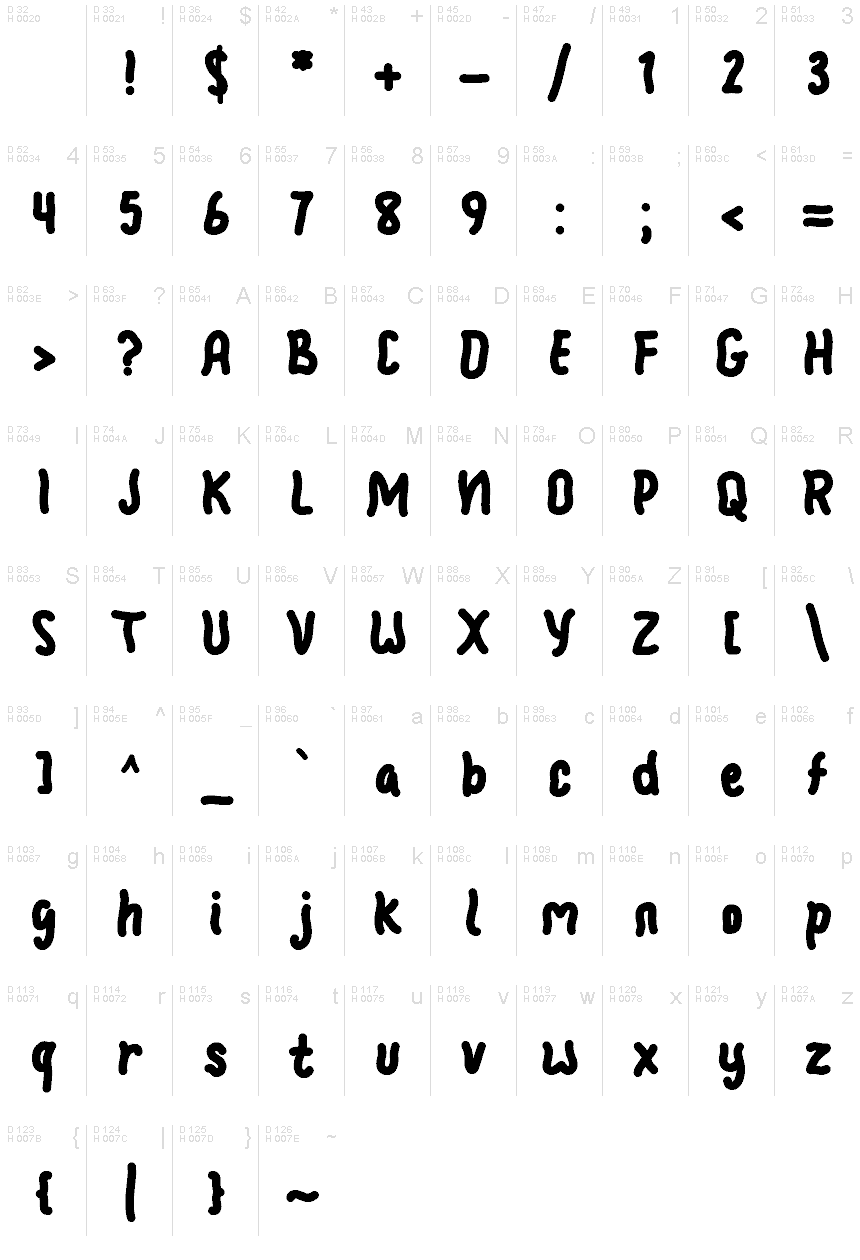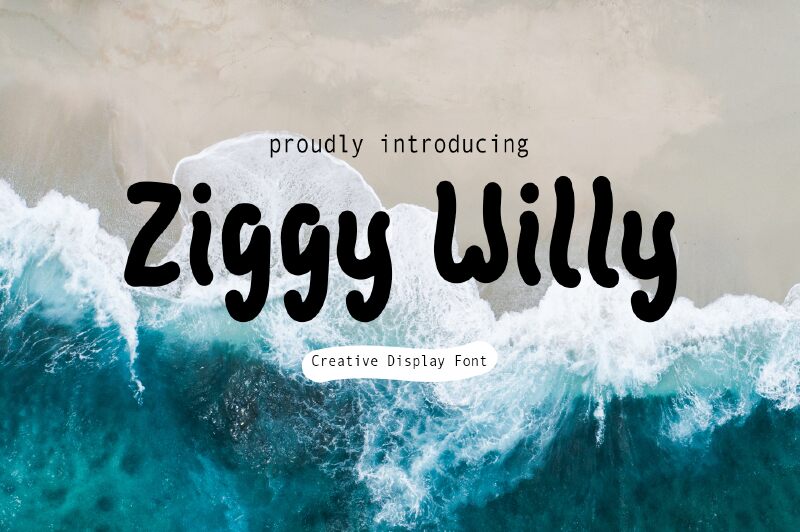
Ziggy Willy - Demo
Ziggy Willy font by Tera Asset Garage is a free handwritten font with a quirky aesthetic and coarse texture. Its casual appearance showcases whimsical charm and retro influences, making it notable for its playful energy. The irregular shape of the characters creates an eye-catching design that further builds on its originality.
Use Ziggy Willy font in titles, headlines, packaging designs, branding projects, social media posts, ads and banners, apps design, books and magazines covers/titles. It also looks incredible when used to decorate posters, flyers or business cards.